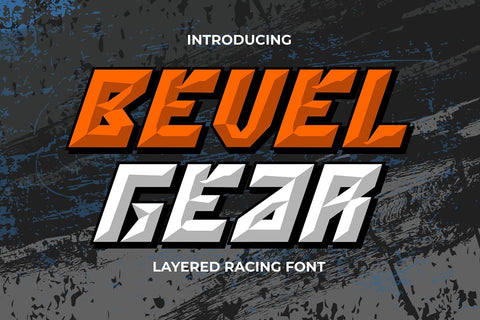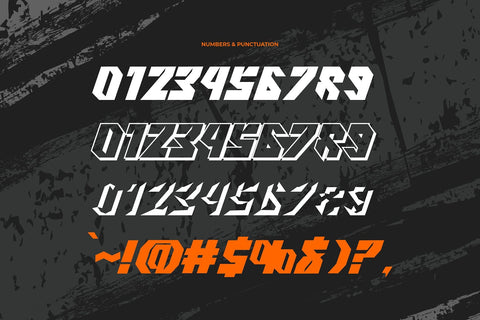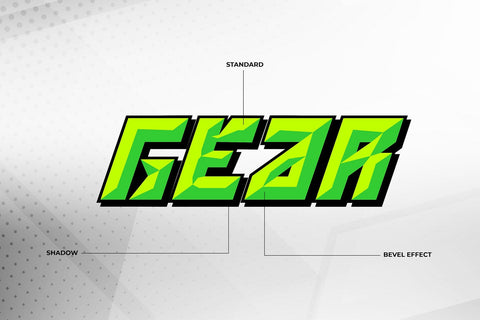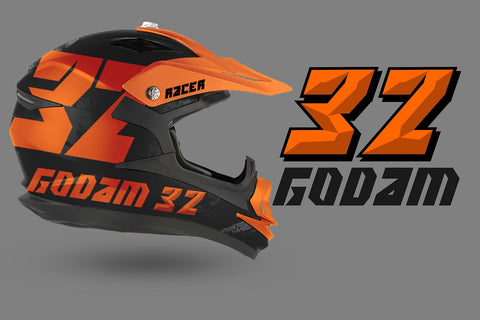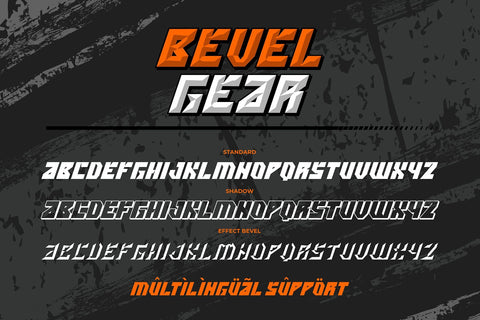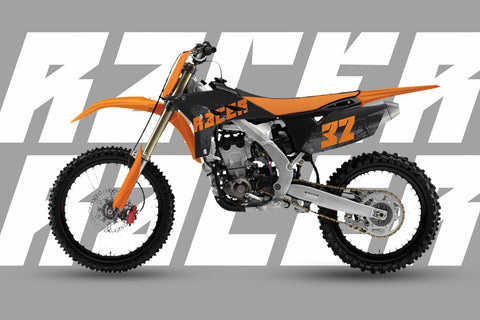
Bevel Gear - 3d Layered Racing Font
"Bevel Gear" is a racing display font with multiple layers that can be used to create a three-dimensional (3D) effect in your text. Fonts like this are often used in racing-related design projects, including logos, posters, and advertisements for racing events or automotive-related content.